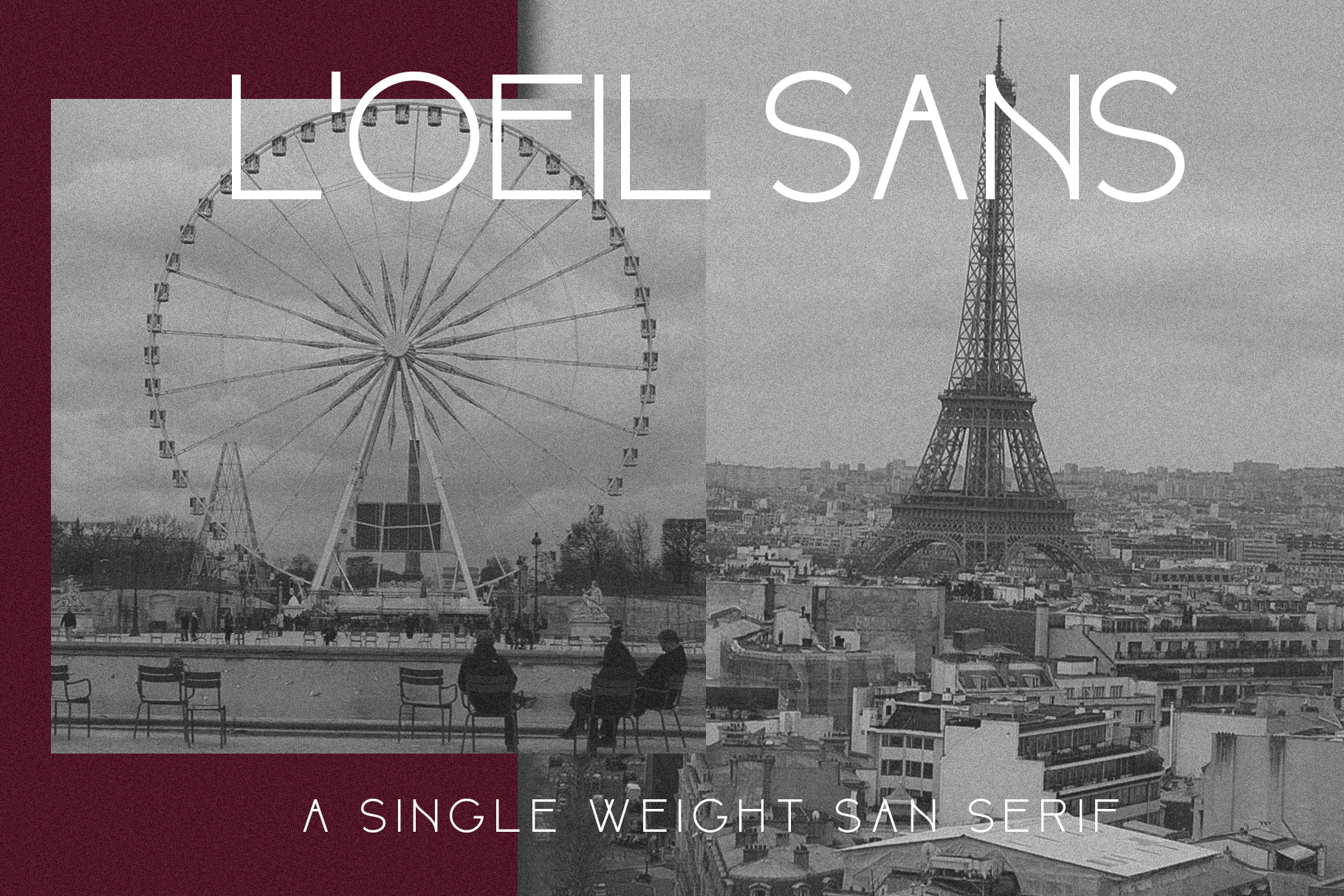
L'OEIL SANS | San Serif Font
L'OEIL SANS™ is a minimal sans-serif, all-caps display typeface designed for posters, social graphics, brand identities and more designed by Kelsey Kleiner here at OneTen.
L'OEIL SANS™ includes uppercase, 0-9, basic punctuation, and is multilingual.